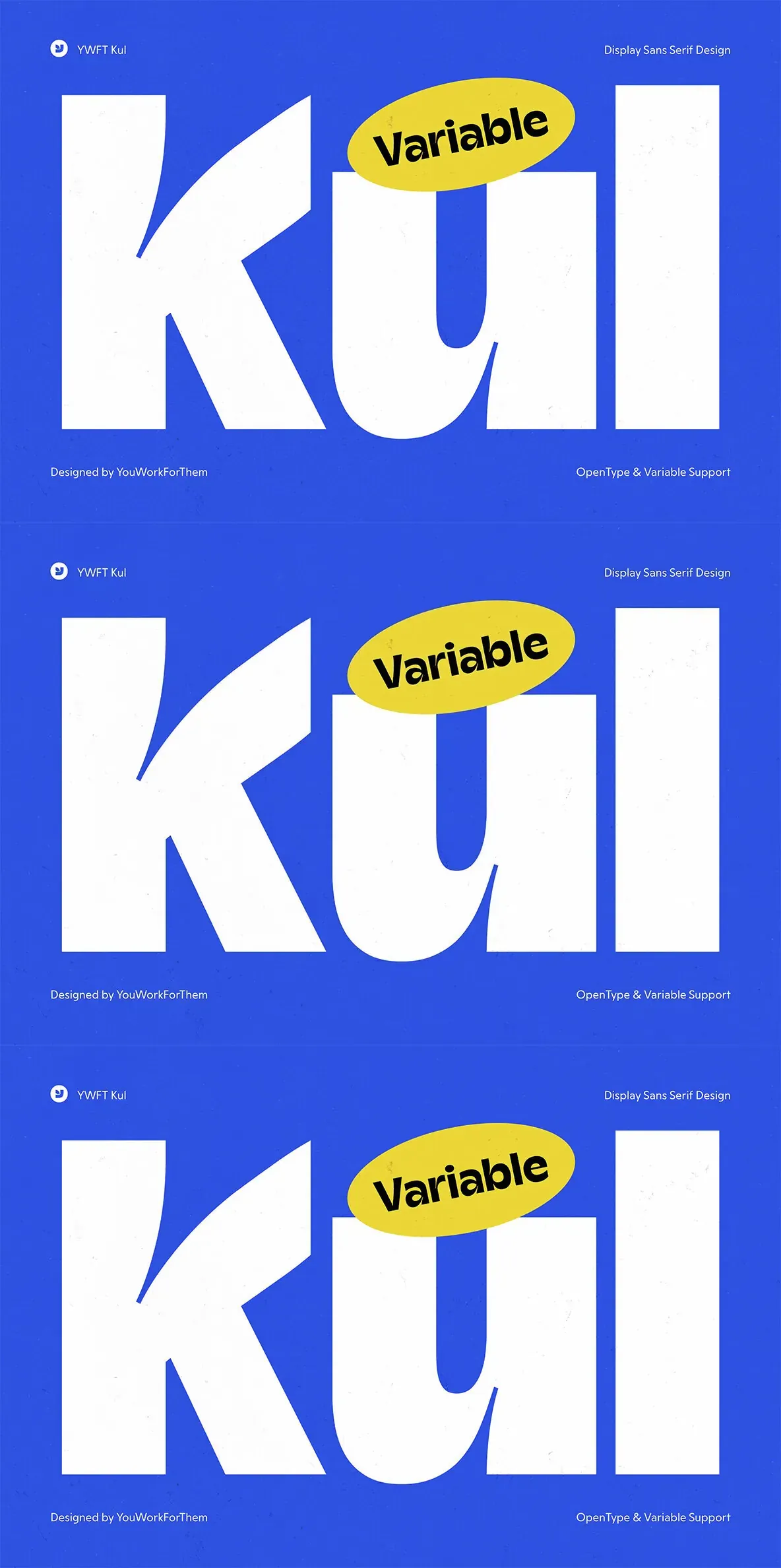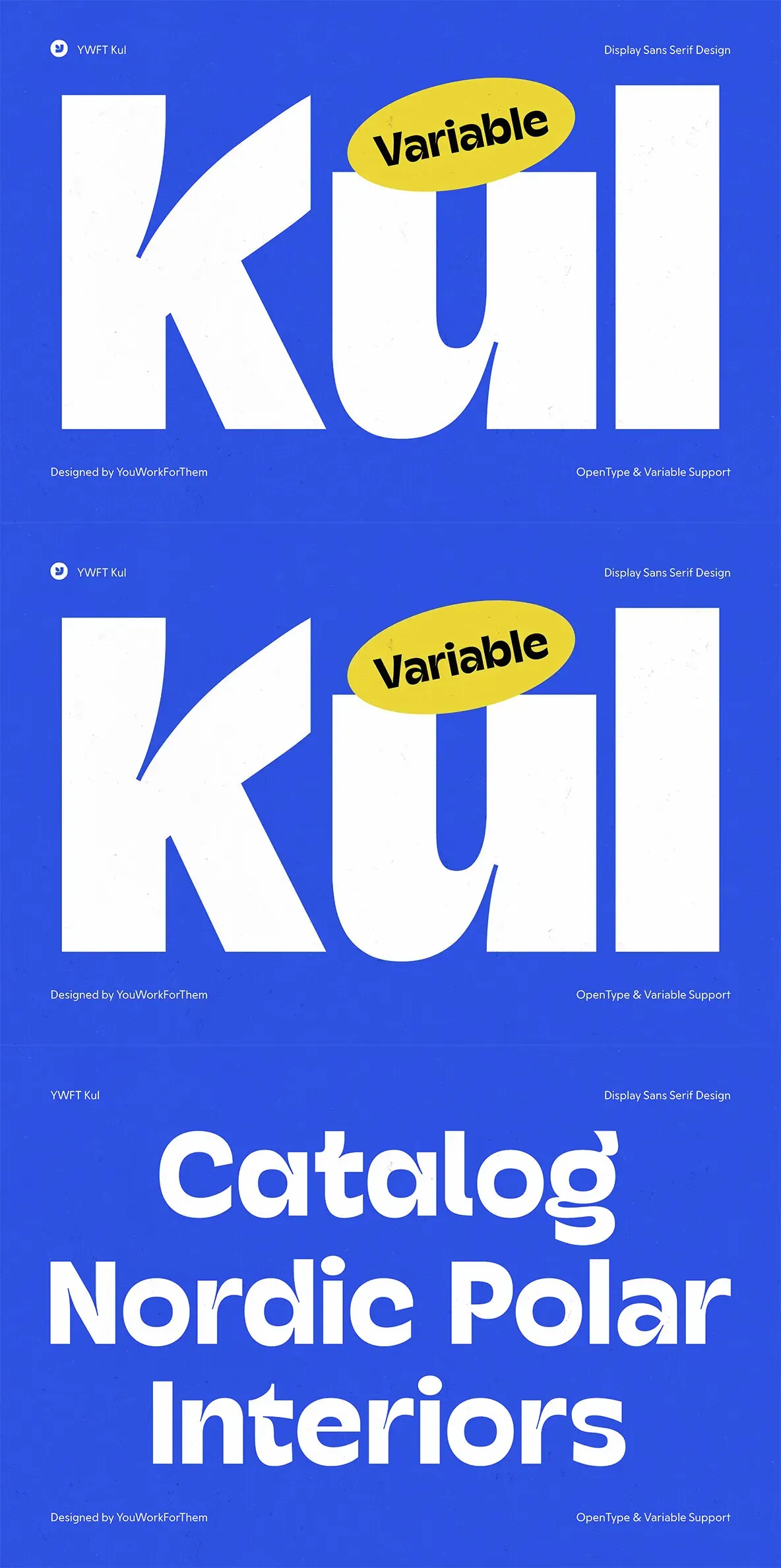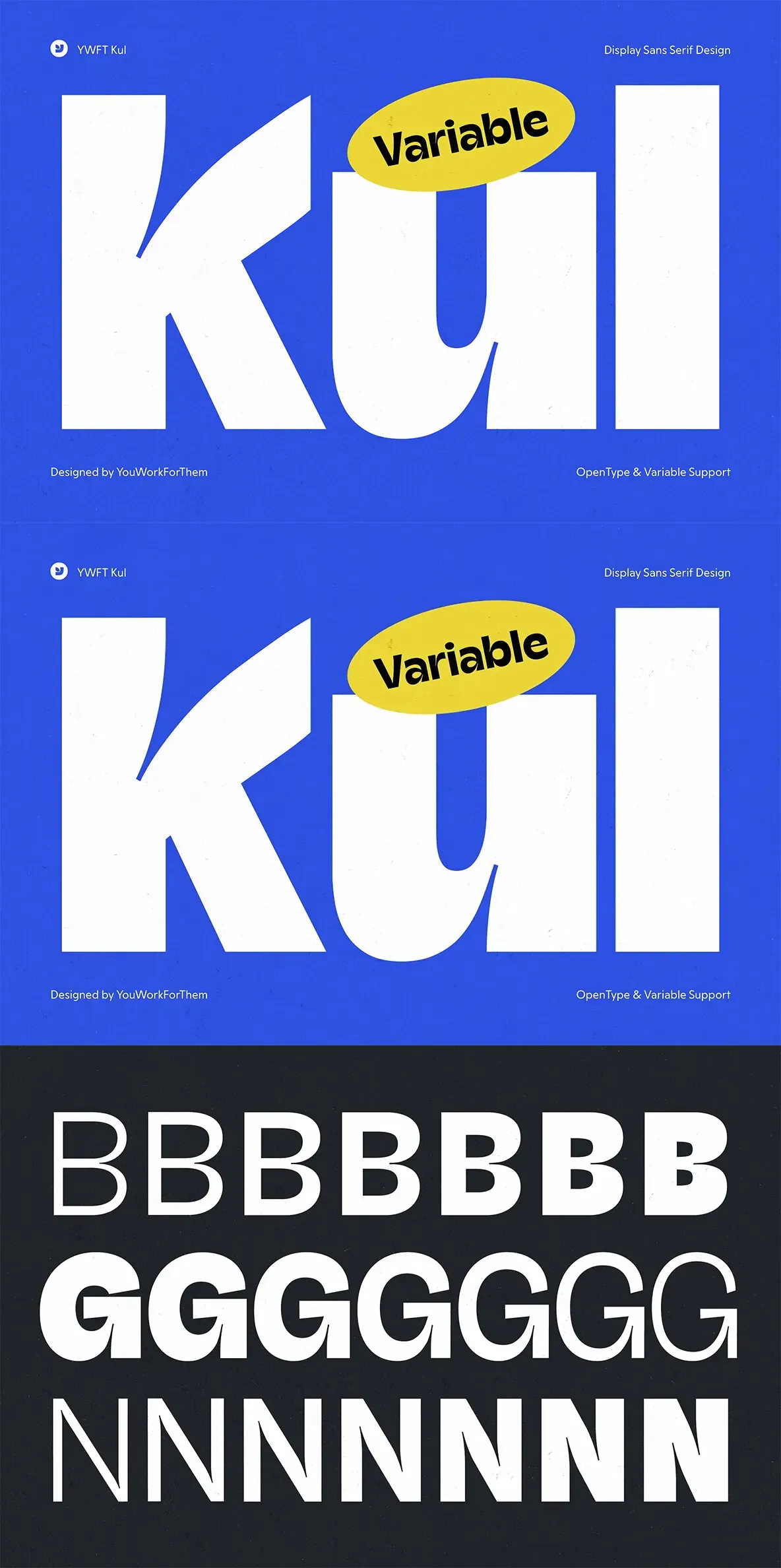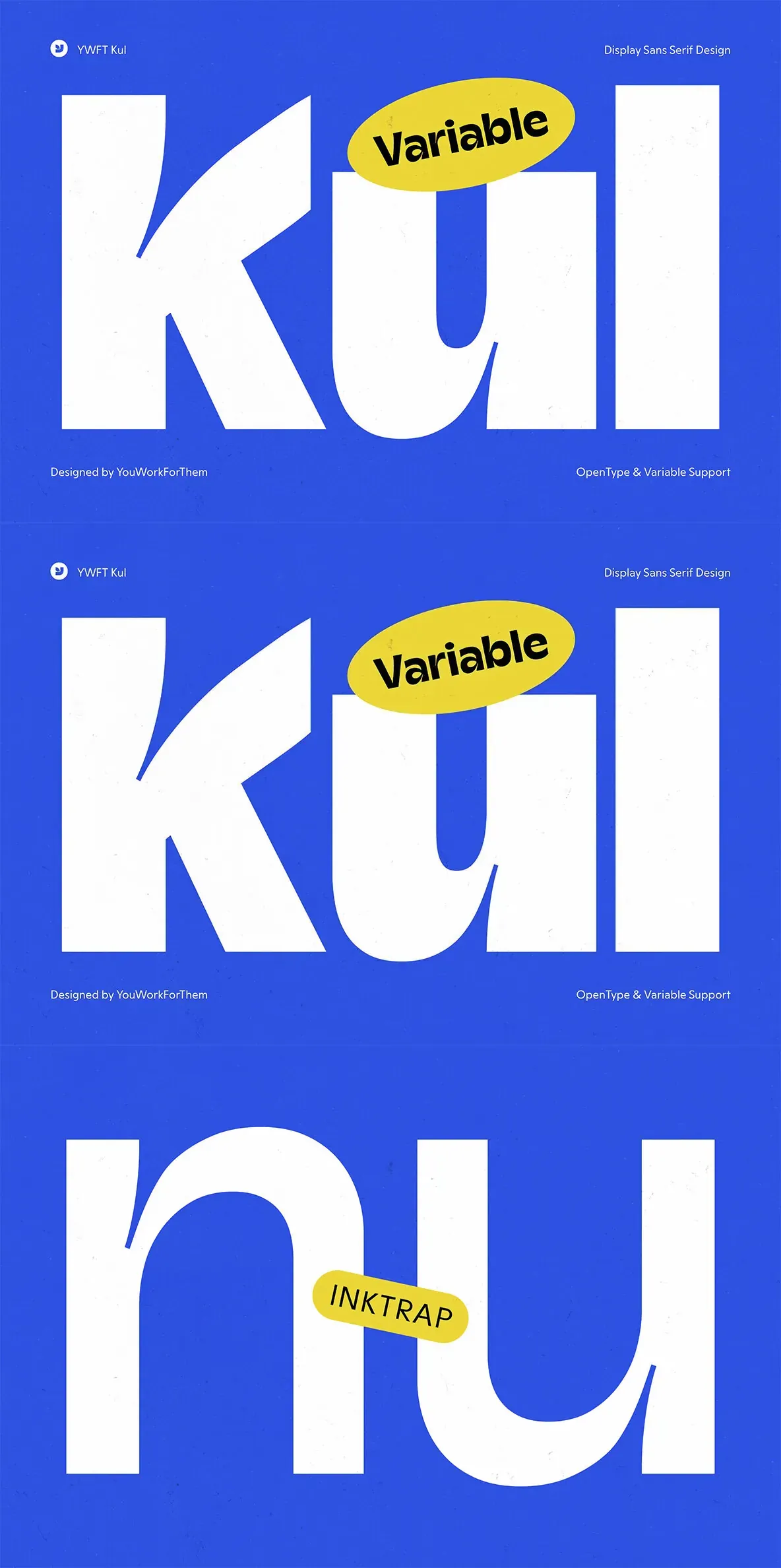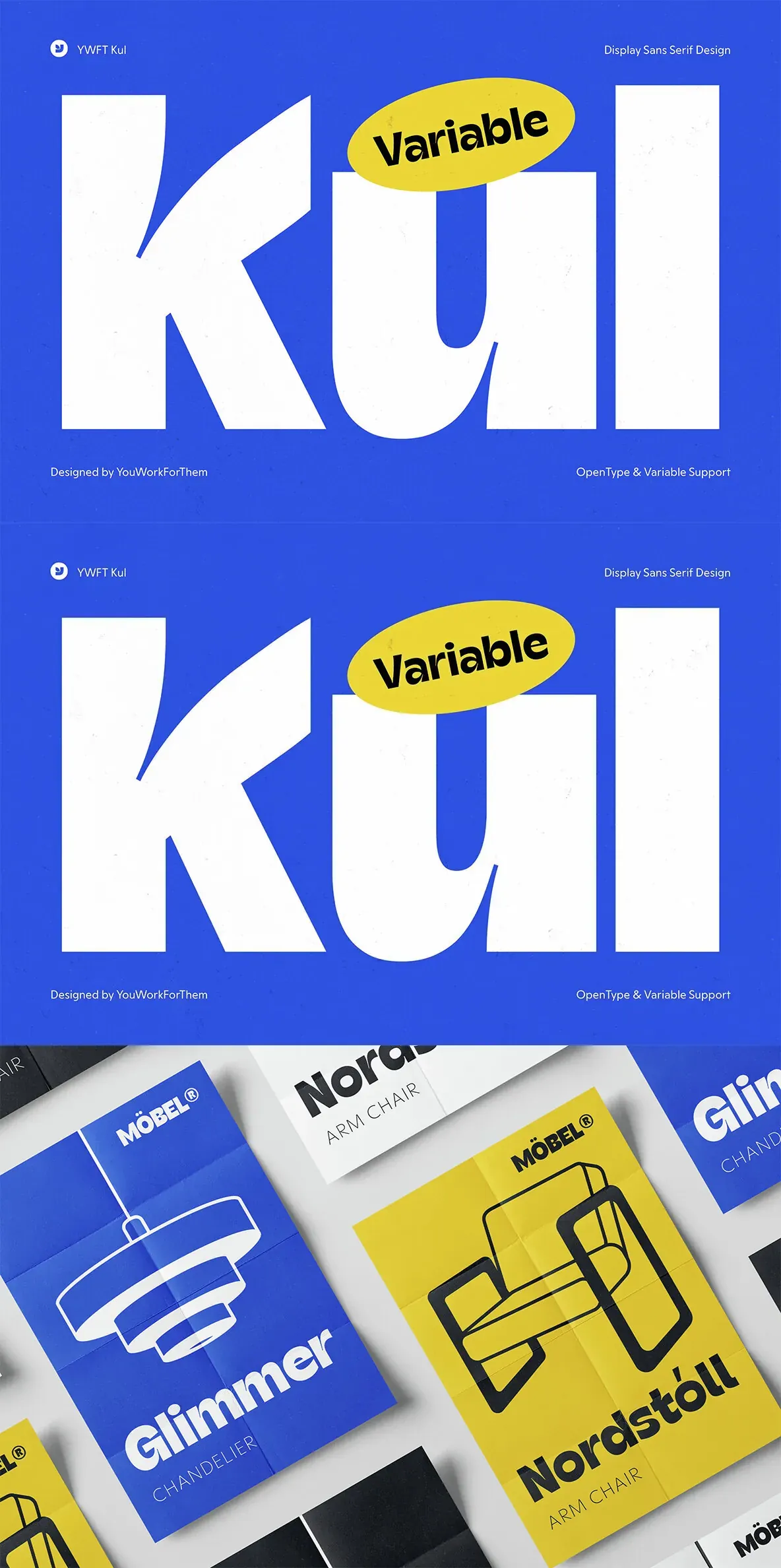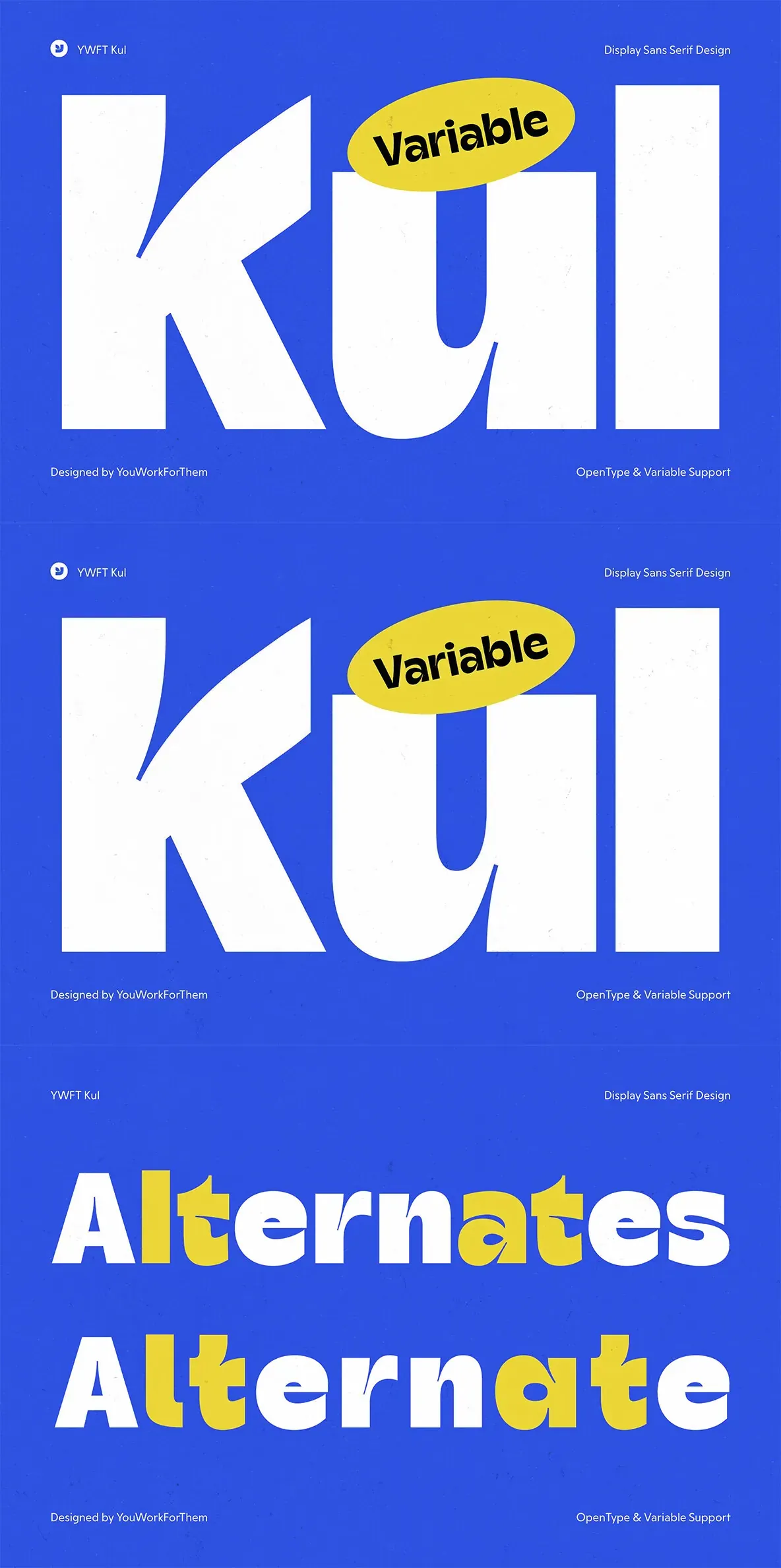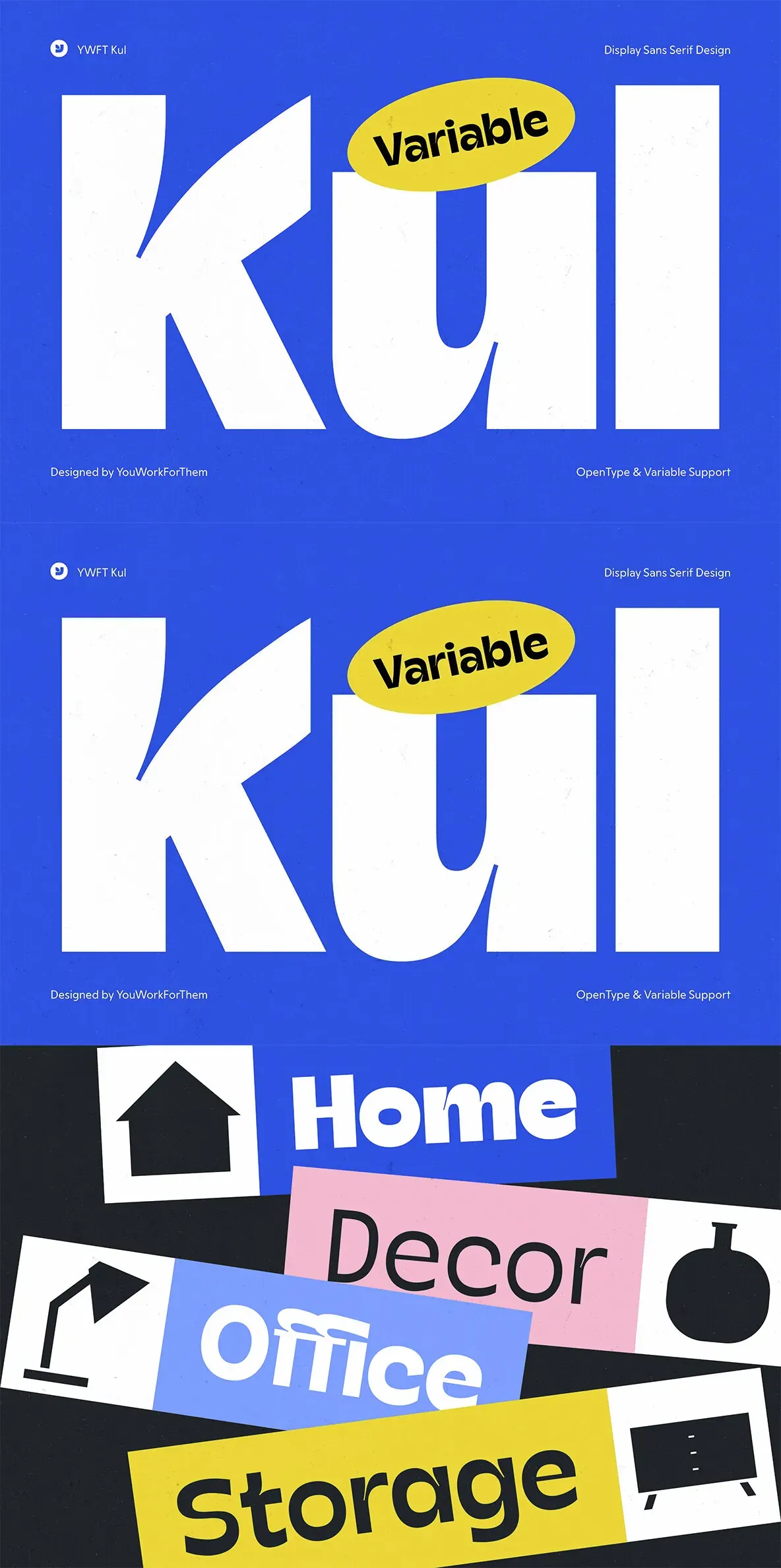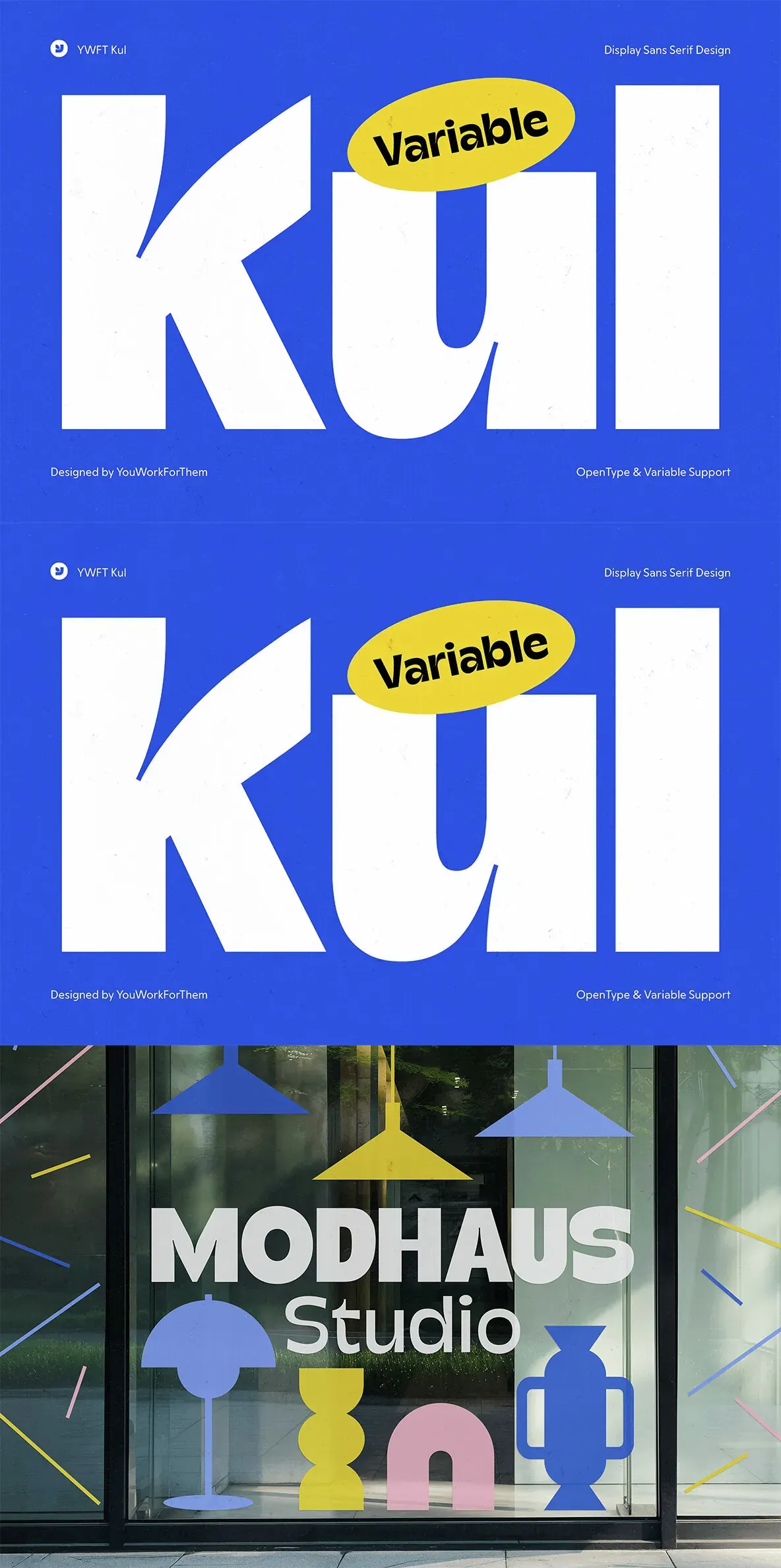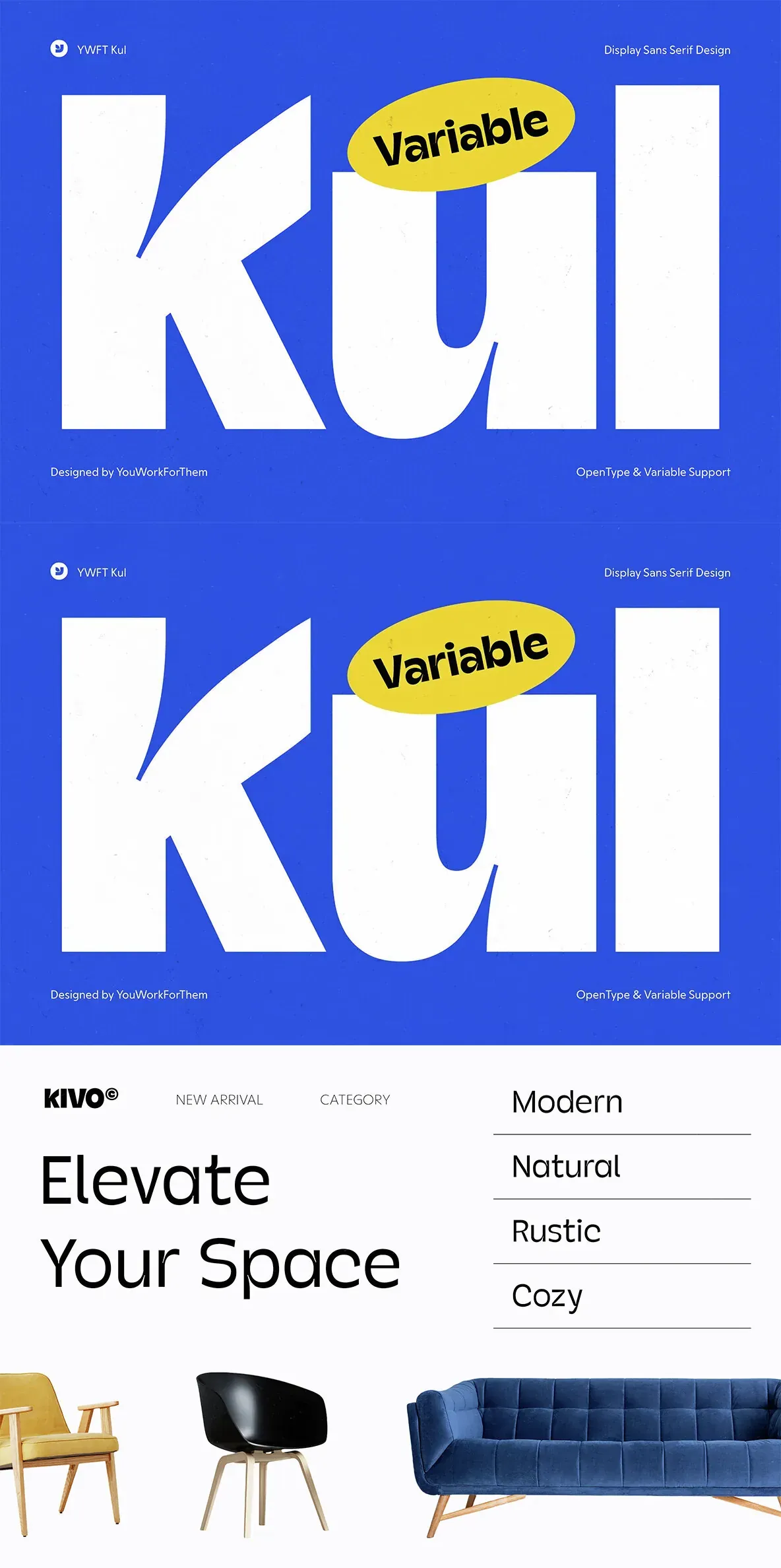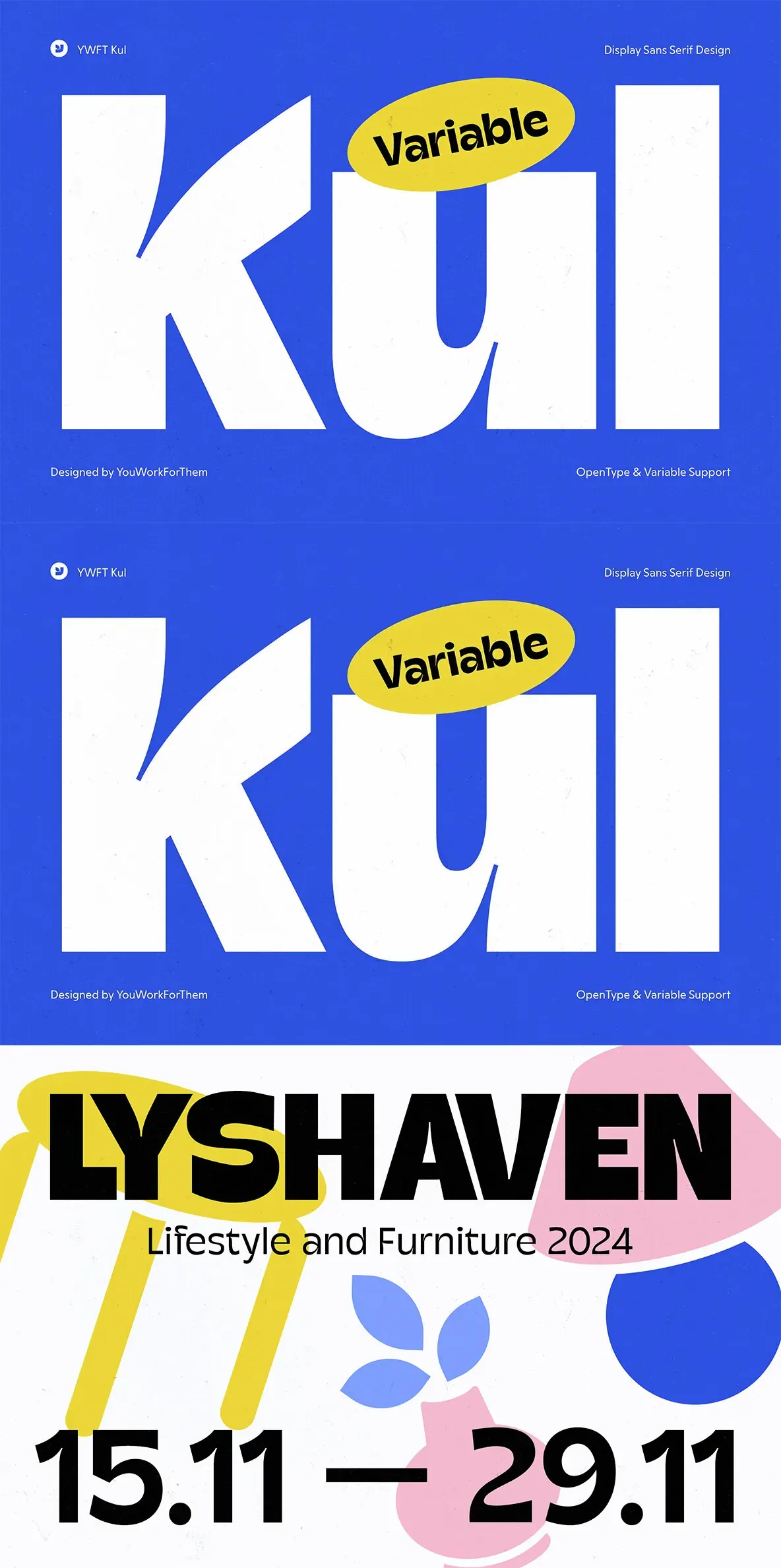
YWFT Kul Font
YWFT Kul: A Modern Typeface Inspired by Nordic Aesthetics
YWFT Kul is a striking sans-serif font that embodies a sleek, modern sensibility while drawing deep inspiration from the typographic traditions of Iceland and the broader Scandinavian design ethos. Its bold, geometric letterforms are crafted with precision, making it ideal for corporate branding, digital interfaces, and editorial design. The font’s clean lines ensure legibility across all formats, from headlines to body text, offering a versatile solution for professionals seeking clarity and style.
The story behind YWFT Kul begins in the rich visual culture of Iceland, where the word “kul,” meaning “cool,” sparked the creative process. Icelandic typography, with its distinct yet understated charm, provided a foundation for the font’s design, blending contemporary trends with the minimalism and functionality that define Scandinavian aesthetics. This fusion results in a typeface that feels both innovative and timeless, perfect for brands that prioritize uniqueness and modernity.
Designed to meet the needs of high-end branding, YWFT Kul is a reflection of today’s Scandinavian design trends—where simplicity, balance, and usability come together in perfect harmony. Its minimalist aesthetic ensures that it can effortlessly adapt to a wide array of digital and print applications, including web design, user interfaces, and advertising. Whether you’re crafting a corporate identity or designing a cutting-edge app, YWFT Kul delivers both visual impact and functional excellence.